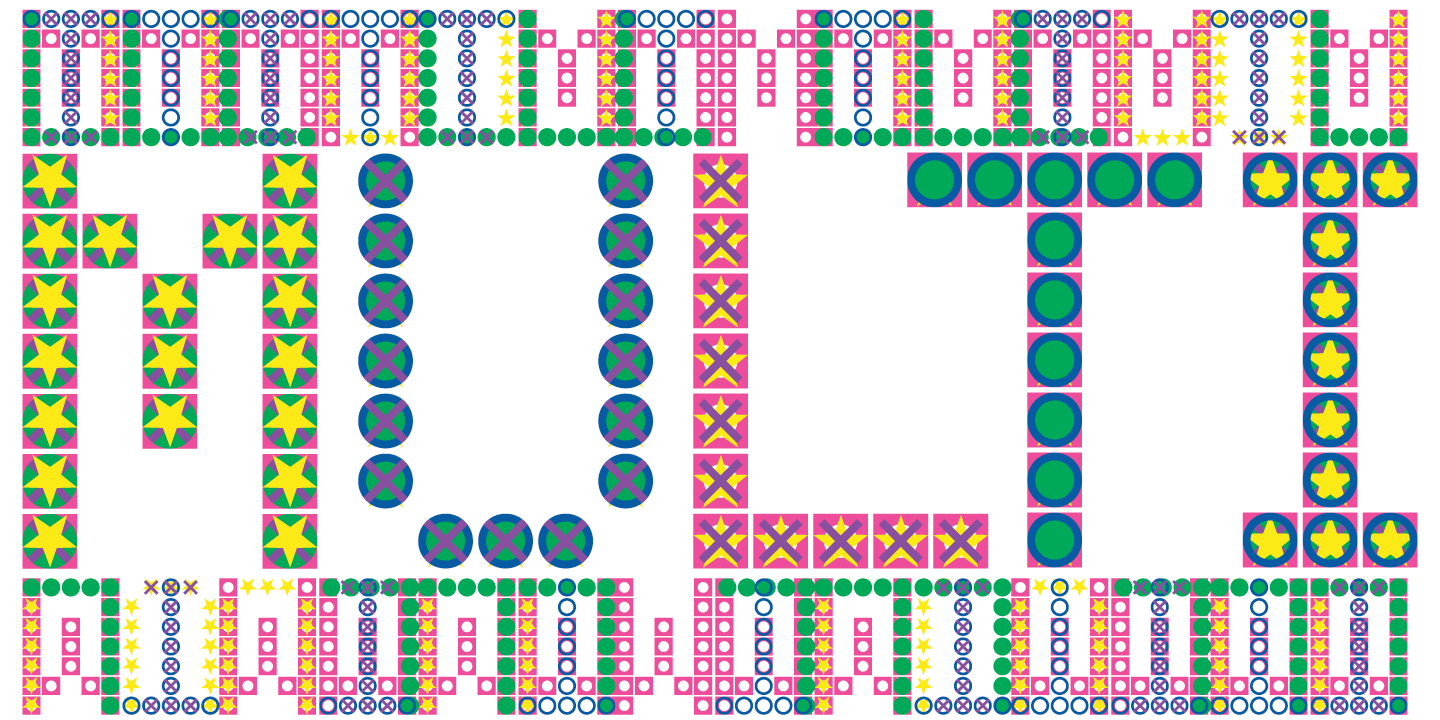
LED Pixel Font is perfect for electronic signage companies, digital display manufacturers, gaming arcade venues, retro tech museums, electronic music festivals, LED advertising boards, pixel art exhibitions, digital scoreboard systems, tech convention graphics, and futuristic digital interface designs.
LED Pixel Font is exciting because it glows with digital precision and electronic energy through pixelated letterforms that capture the vibrant illumination of LED displays and the technological charm of digital screen aesthetics, making it perfect for brands celebrating electronic innovation and digital visual technology.
The LED Pixel Font family includes regular and bold weights with illuminated alternates, digital grid ornaments, and electronic decorative elements, providing designers with luminous tools for creating typography that shines with authentic digital display character and electronic authenticity.
When your project needs digital display authenticity and electronic visual appeal, LED Pixel Font Free Download delivers the perfect typographic circuit for electronic communications. This illuminated display typeface combines digital technology heritage with contemporary functionality, ensuring your brands resonate with audiences seeking genuine electronic experiences and digital innovation. The pixelated letterforms and LED-inspired styling make this font an essential choice for tech companies, digital display manufacturers, and any application where electronic signage, digital visual technology, and LED innovation are crucial for establishing credibility and connecting with communities that appreciate the bright future of digital display technology and the revolutionary impact of LED systems that illuminate our modern world with precise electronic brilliance.